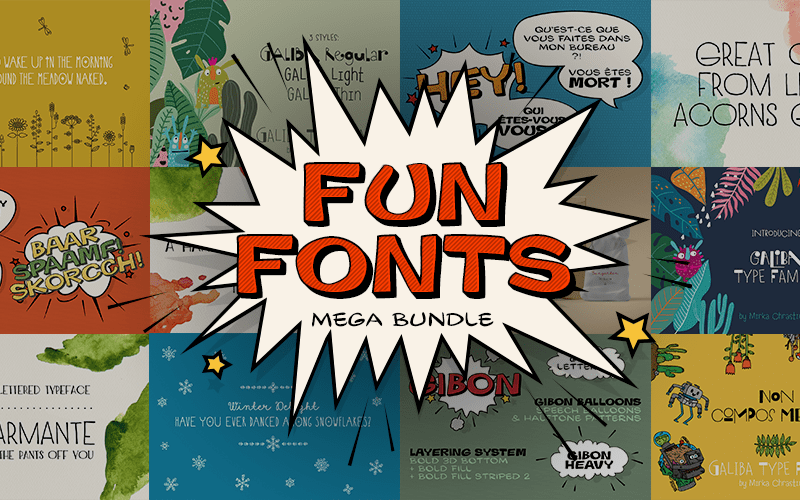
Fun Fonts Bundle- With 41 Funky and Creative Fonts
Here’s The Amazing Fun Fonts Bundle that will help you give the right vibes to your graphics be it comic, goofy, minimalistic or modern. Now you have the right fonts at your fingertips.
Design unique kids book covers, party invites, social media posts & so much more with these quirky yet gorgeous fonts.
The Font Families included in this fun fonts bundle:
Charmante (2 Fonts)
Galiba (3 Fonts)
Gibon (15 Fonts)
Sungarden (21 Fonts)
A Sneak Peek Into The Fun Fonts Bundle:
The Charmante Font Family
The Galiba Font Family
The Gibon Font Family
The Sungarden Font Family
Charmante Family
Charmante Regular
Charmante Bold
Sungarden Complete Pack
Sungarden Script
Sungarden Narrow Regular
Sungarden Narrow SC Regular
Sungarden Narrow SC Bold
Sungarden Wide Regular
Sungarden Wide SC Regular
Sungarden Wide SC Bold
Sungarden Mix Regular
Sungarden Mix Small Regular
Sungarden Mix Bold
Sungarden Playful Regular
Sungarden Playful SC Regular
Sungarden Playful SC Bold
Sungarden Pics Autumn
Sungarden Pics Camomile
Sungarden Pics Forget-me-not
Sungarden Pics Lavender
Sungarden Pics Magic
Sungarden Pics Summer
Sungarden Pics Tulip
Sungarden Pics Winter
14 – 21 are illustration fonts
Galiba Family
Galiba Regular
Galiba Light
Galiba Thin
Gibon Complete Pack
Gibon Lettering
Gibon Bold
Gibon Bold 3D
Gibon Bold 3D Bottom
Gibon Bold Bottom
Gibon Bold Fill
Gibon Bold Fill Gradient
Gibon Bold Fill Striped 1
Gibon Bold Fill Striped 2
Gibon Bold Outline
Gibon Bold Shadow
Gibon Bold Shadow Striped 1
Gibon Bold Shadow Striped 2
Gibon Heavy
Gibon Balloons
15 is an illustration font